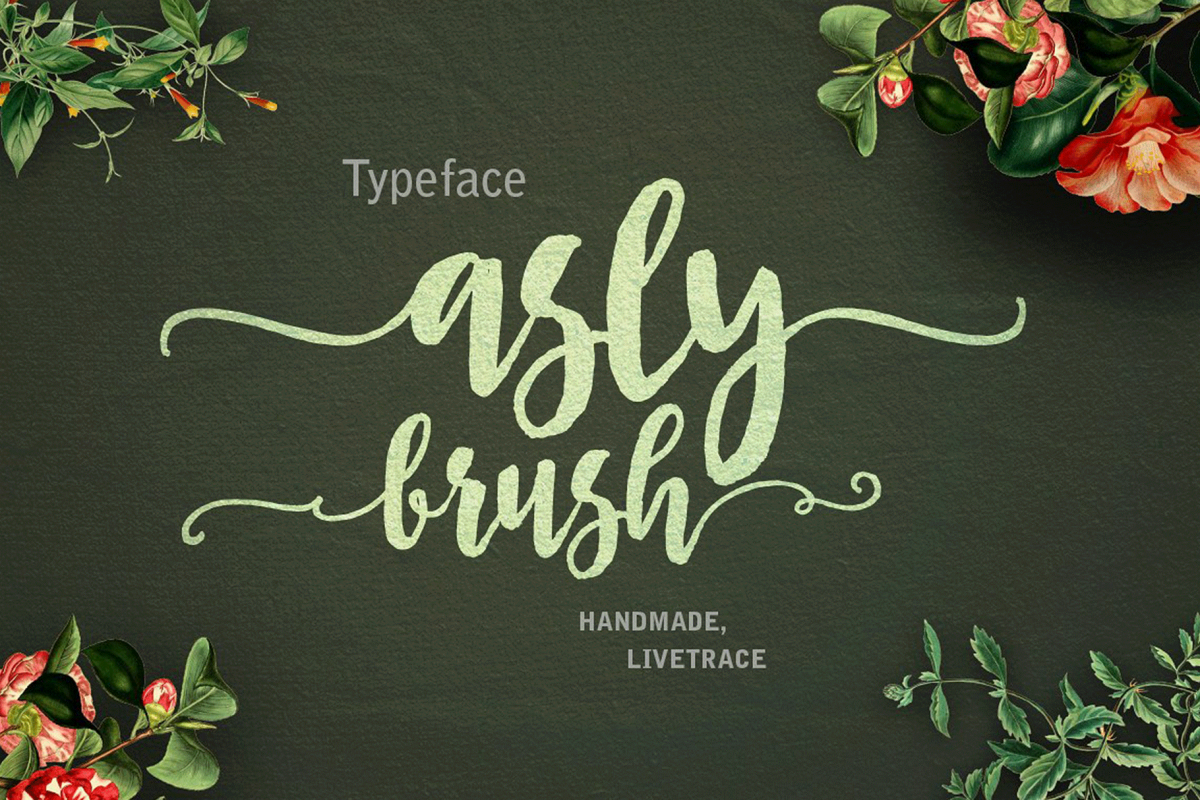
Asly Brush
Asly Brush is the font style handmade dancing and then live trace to have Grungy brush and unique forms of calligraphy, the writing style is very natural.The Features of this fonts is:
• Standart ligatures
• Stylistic sets
Asly Brush Have PUA Unicode (Private Use Areas)